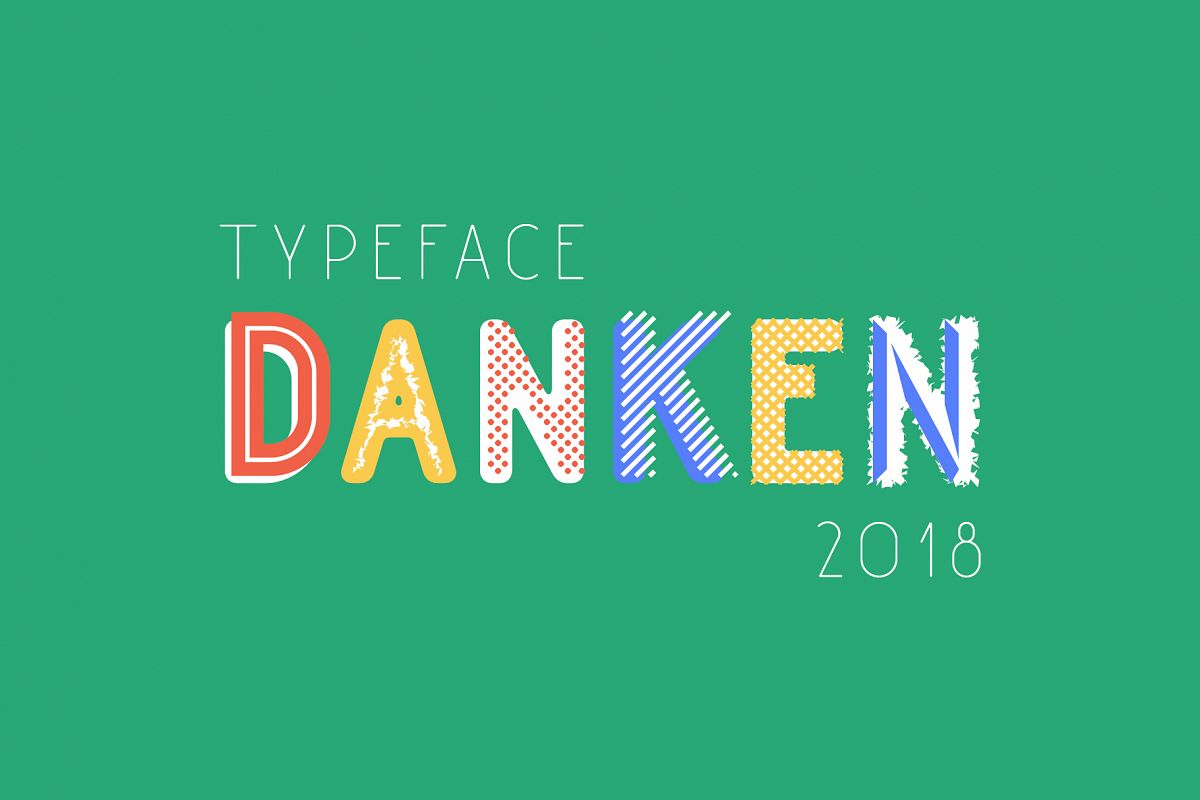
Danken
DANKEN is all caps display typeface was created to mix font styles and create unlimited variety of effects. Now it has 22 font styles but it's growing.